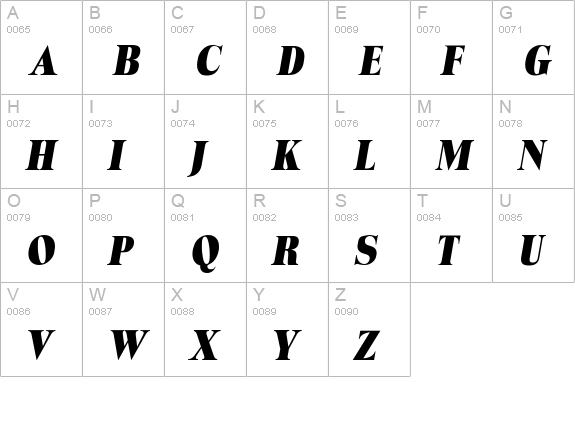
Toledo Heavy SF Bold Italic is a heavy, high-impact, italic variant in the Toledo typeface family \xE2\x80\x94 well suited to high-impact headlines, posters, and display advertising.
Toledo Heavy SF Bold Italic is a powerful and dynamic font that exudes strength and confidence. With its bold and italic design, this font commands attention and makes a bold statement. Whether you're designing a logo, creating a headline, or designing a poster, Toledo Heavy SF Bold Italic will add a touch of sophistication and uniqueness to your project. The thick and sturdy letterforms of Toledo Heavy SF Bold Italic are perfectly balanced with its slanted italic style, creating a harmonious blend of strength and elegance. This font is ideal for projects that require a strong and impactful visual presence, such as branding, advertising, and editorial design. What sets Toledo Heavy SF Bold Italic apart is its versatility. It can be used for both display and text purposes, ensuring that your message is conveyed with clarity and impact. Its legibility remains intact, even at smaller sizes, making it suitable for a wide range of applications. And the best part is, Toledo Heavy SF Bold Italic is available for free! You can easily download this font at FontsMarket.com, a trusted source for high-quality fonts. Whether you're a professional designer or an aspiring creative, Toledo Heavy SF Bold Italic is a fantastic addition to your font library, and its availability as a free download makes it even more irresistible. Don't miss out on the opportunity to enhance your designs with Toledo Heavy SF Bold Italic. Download it now from FontsMarket.com and experience the power and versatility of this extraordinary font.